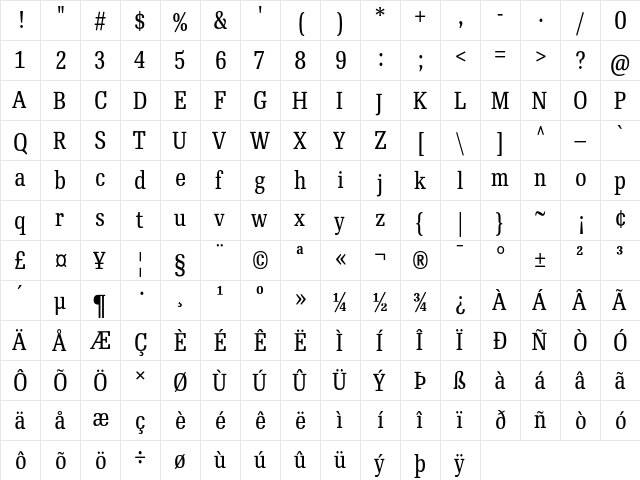
RePublic Book Regular Cond
| Foundry | Tomas Brousil, |
Design Context for RePublic Book Typeface
RePublic Book is a composed and adaptable typeface that performs quietly and consistently across a wide range of design contexts. The condensed width makes it efficient for tight spaces without sacrificing legibility.